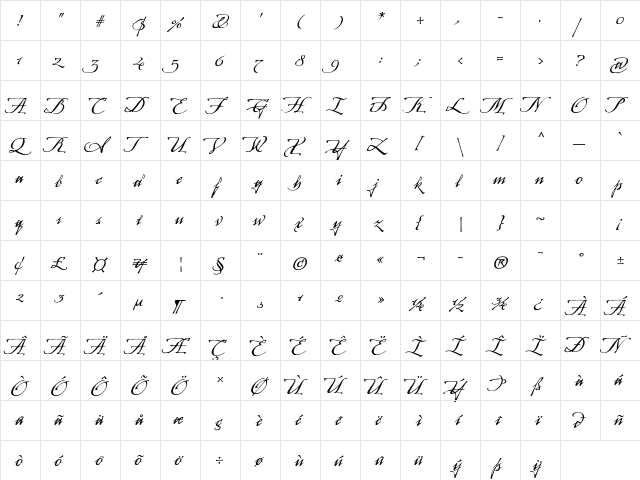
Arcana GMM Std Manuscript
| Designer | Gabriel MartҮez Meave |
Design Context for Arcana GMM Std Typeface
Arcana GMM Std flows with the natural rhythm of handwritten lettering, making it ideal for designs that call for warmth and personal expression.
Font Pairing: Combine Arcana GMM Std with a simple geometric sans for maximum contrast — the tension between flowing curves and clean structure is a classic typographic pairing.
Pro Tip: Use Arcana GMM Std for short runs of text — names, titles, or taglines. Extended body copy in script faces tires the eye quickly.